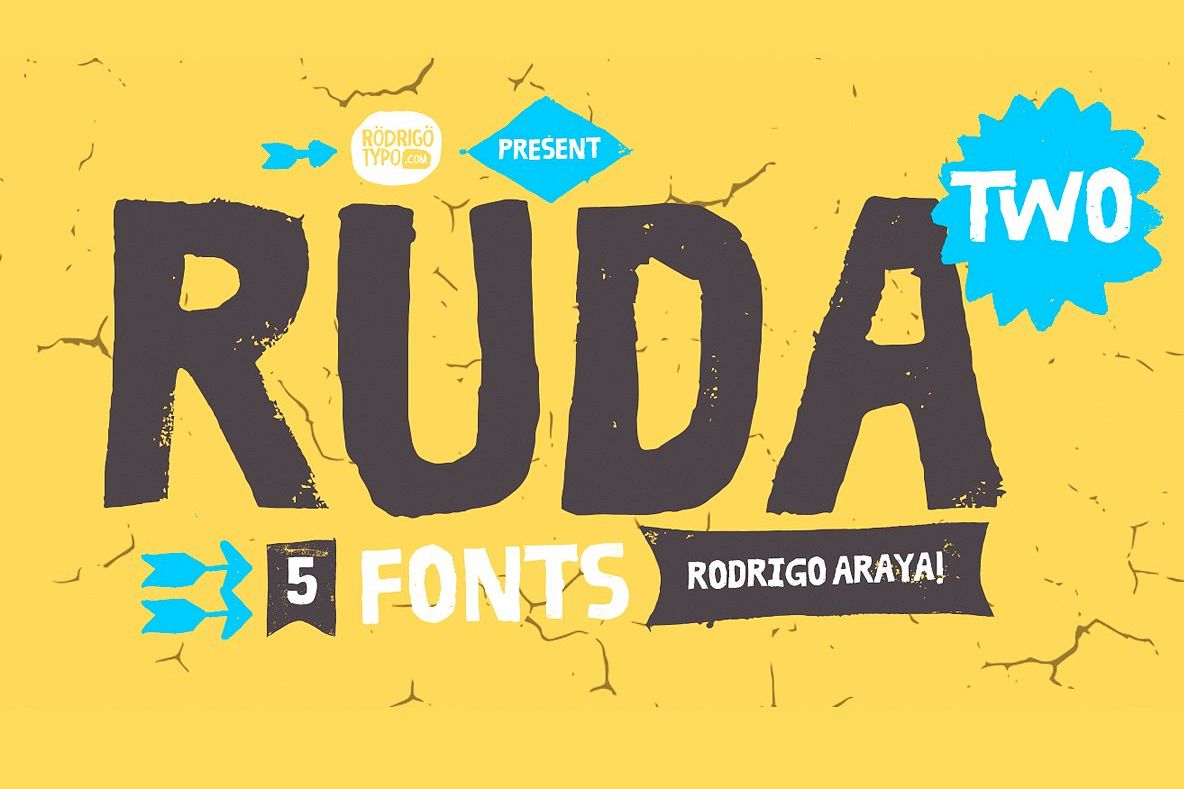
Ruda Two
Ruda Two Year: 2018 Concept: A typography designed completely by hand, designed each letter, each ornament and banner designed with ink and different materials, Ruda two, is a typography for experimental designs inspired by independent film, is created for children's graphics or suspense, I hope you enjoy it!